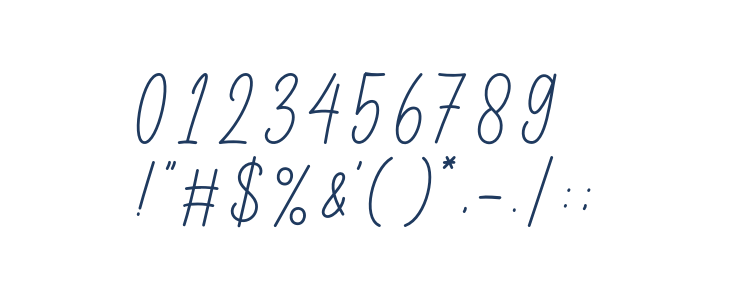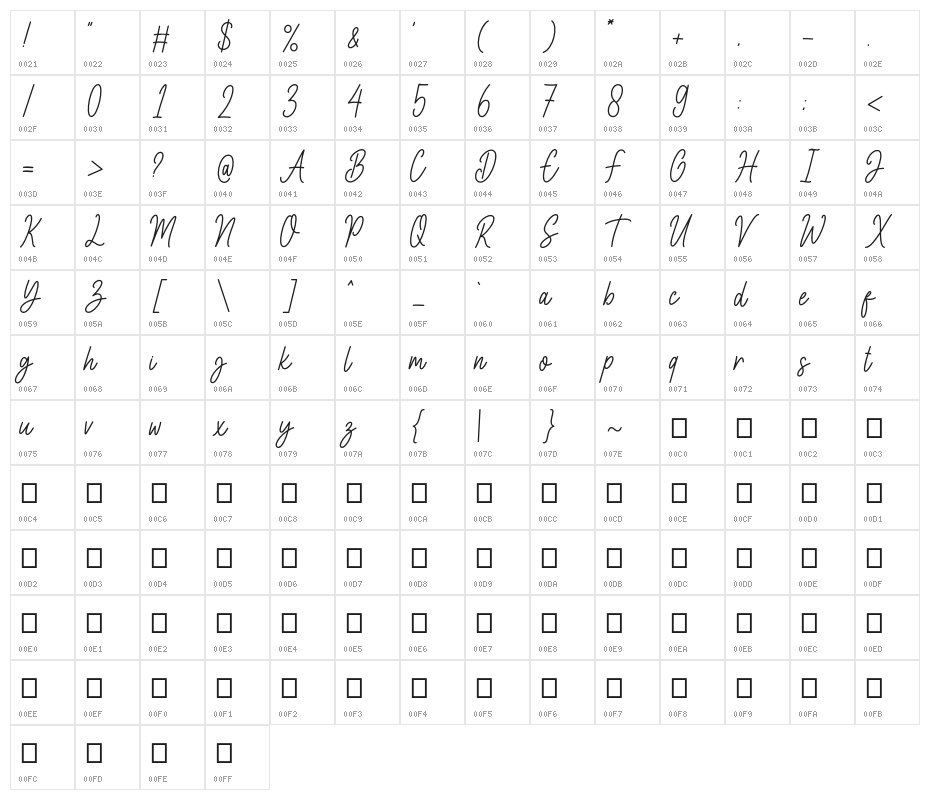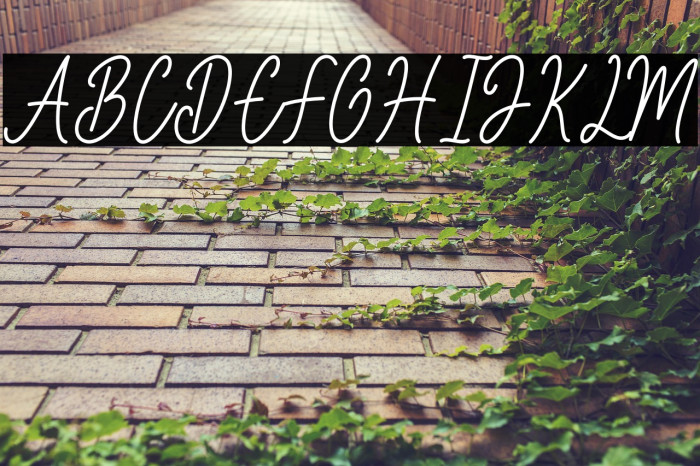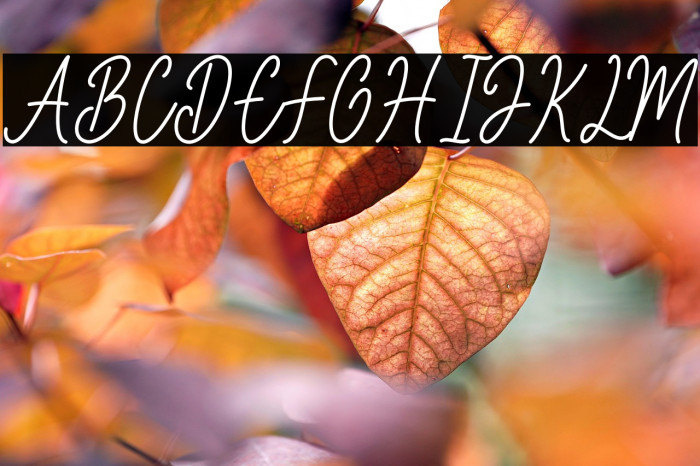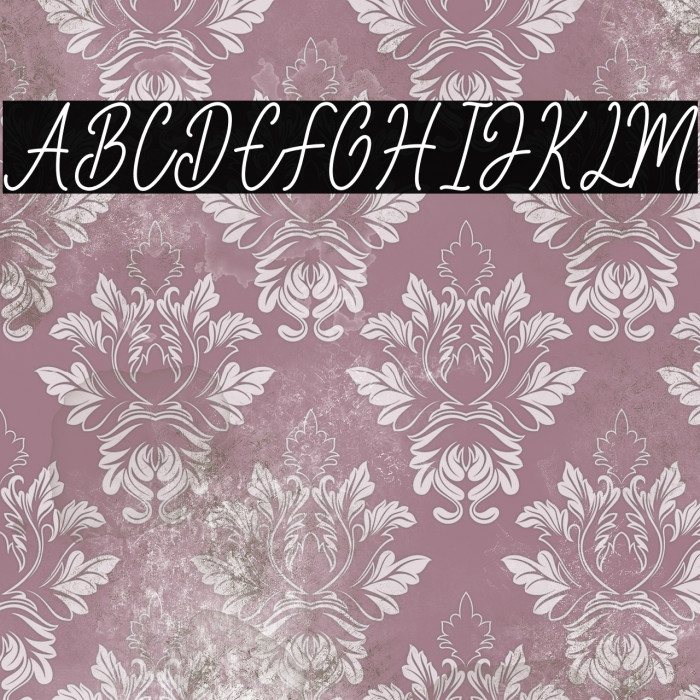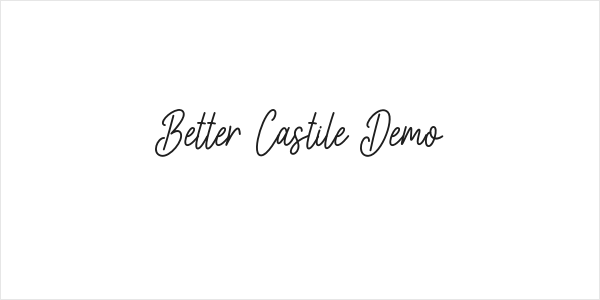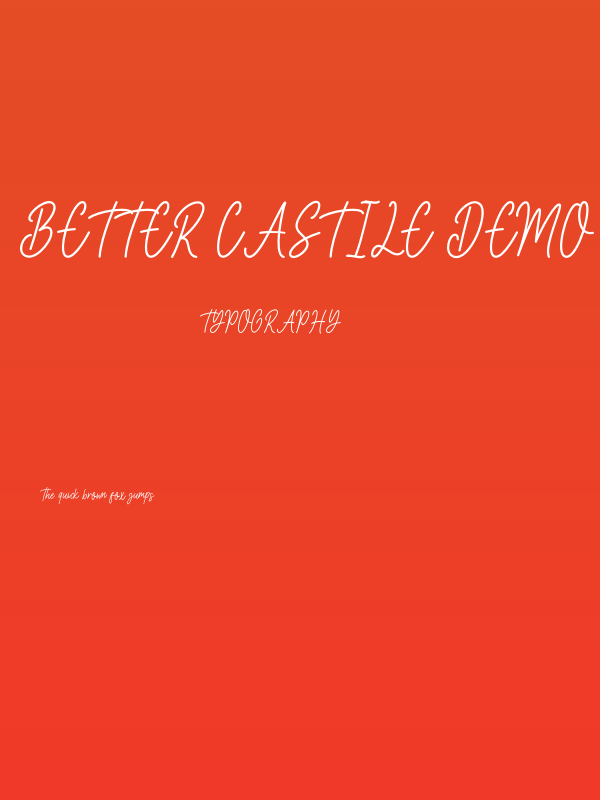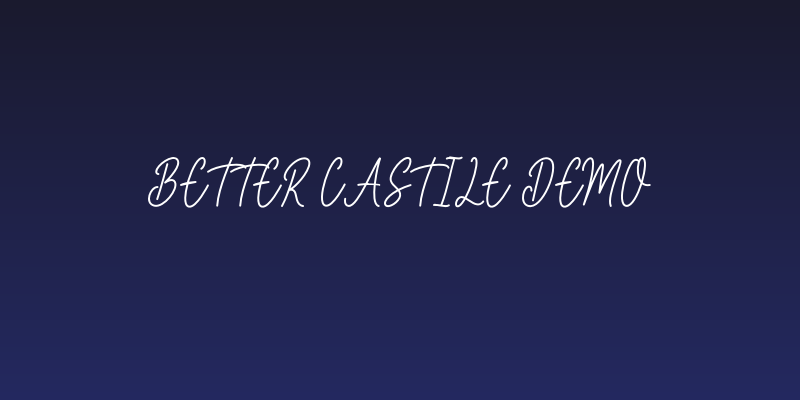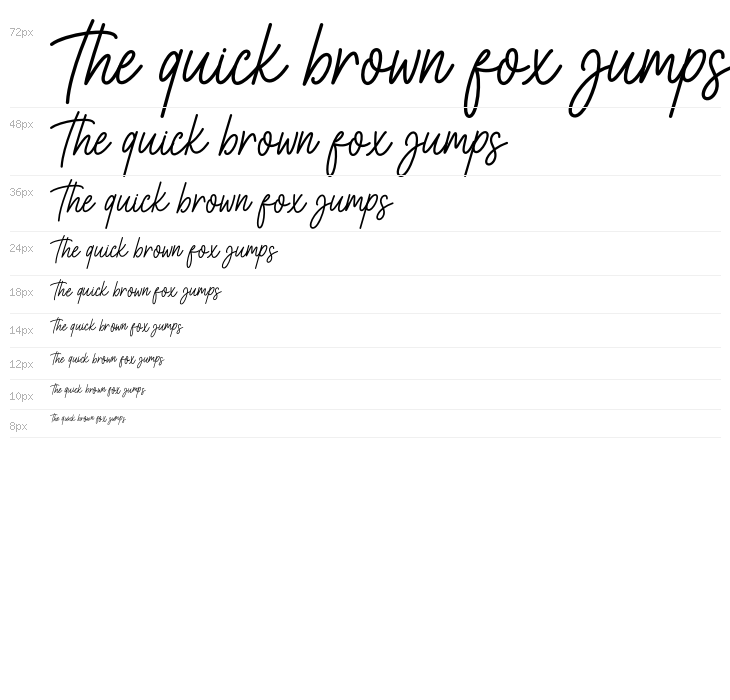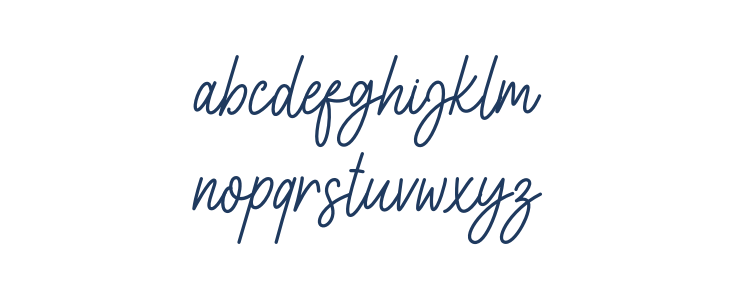
Better Castile Demo Font
Better Castile Demo Description
This font exudes a charming and elegant handwritten style, characterized by its fluid and connected letterforms. The uppercase letters are tall and slender, with a graceful flow that mimics natural handwriting. The lowercase letters maintain a consistent style, offering a smooth and cohesive look. Numbers are designed with the same fluidity, ensuring they blend seamlessly with the alphabet. Special characters are thoughtfully crafted, maintaining the overall aesthetic. The font's delicate strokes and slight slant give it a sophisticated yet approachable feel, making it suitable for a variety of creative projects.
| Overall Style | Elegant, Handwritten |
| Proposed Projects | Ideal for wedding invitations, greeting cards, personal branding, and elegant packaging designs. |